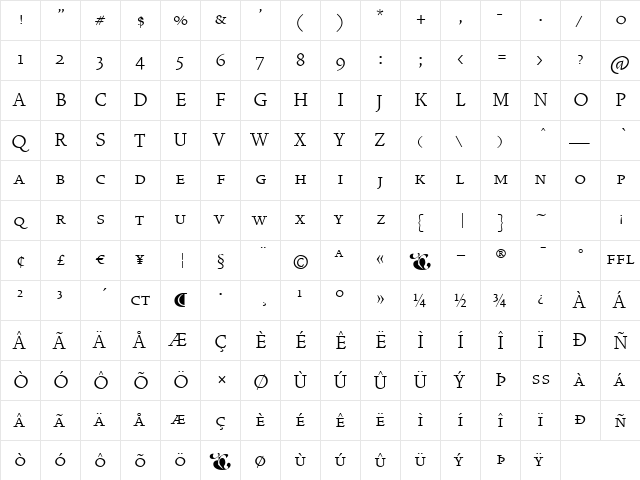
VendettaLightPetiteCaps Regular
| Foundry | Emigre |
| Designer | John Downer |
Design Context for VendettaLightPetiteCaps Typeface
VendettaLightPetiteCaps takes a measured approach to typography — its balanced proportions and neutral character make it a reliable workhorse for both digital and print work. The delicate stroke weight brings airiness and refinement to layouts.